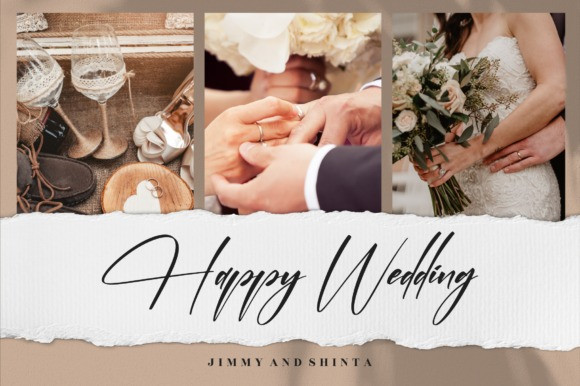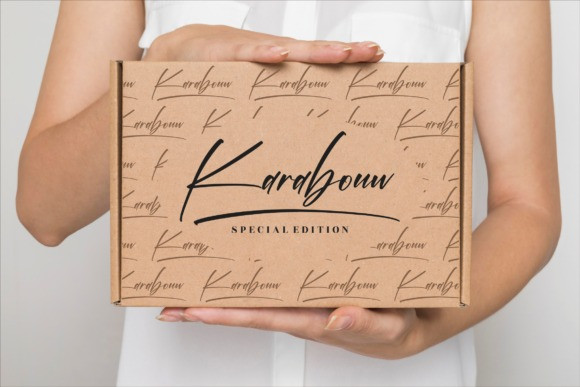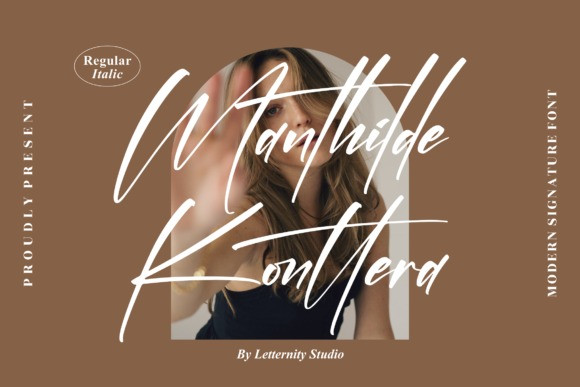
Manthilde Konttera Font
Manthilde Konttera Font is a distinct graceful script font. Add this romantic looking font to each of your love letters, wedding invitations or favorite design ideas, and you will be astounded by the outcome.